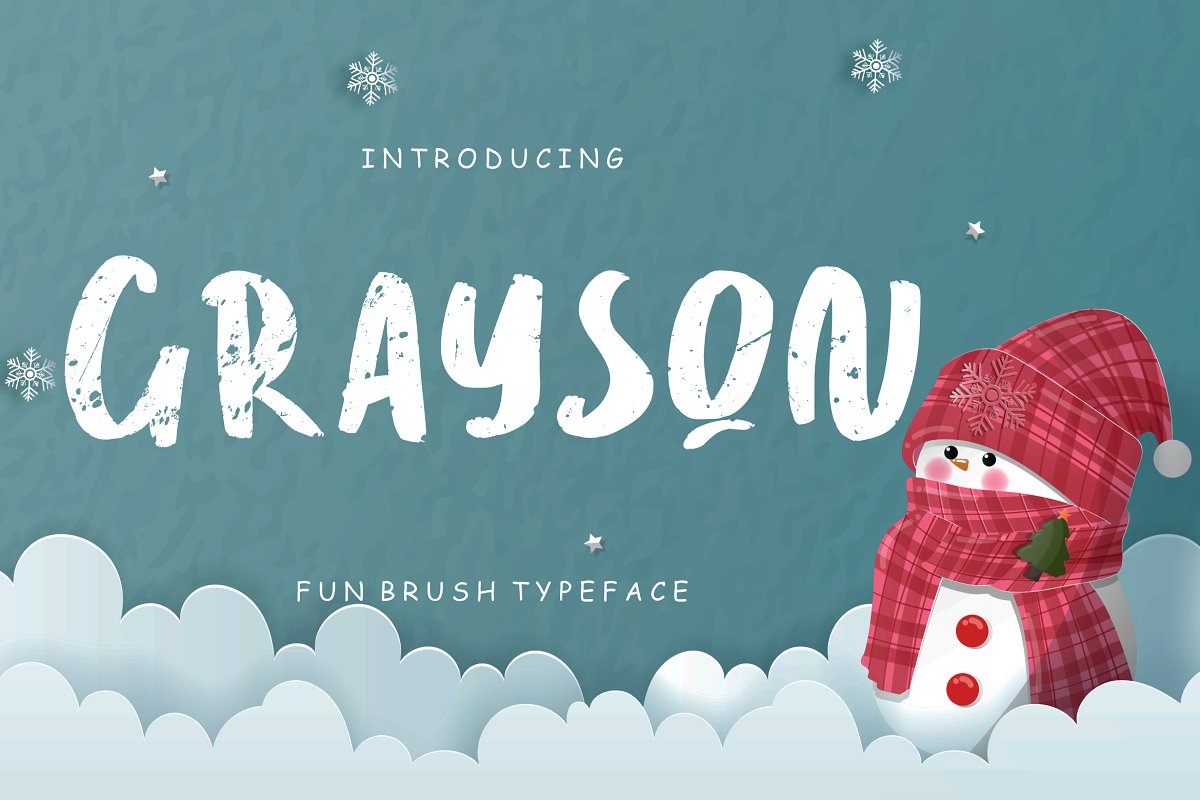
Grayson Fun Brush Typeface
Grayson is a fun brush commercial use font for children, kindergarten, and Christmas occasions.
Grayson is perfect for branding projects, logos, wedding designs, social media posts, advertisements, product packaging, product designs, labels, photography, watermarks, invitations, stationery and any projects that need handwriting taste.
Unexpected and playful brush typeface that will inspire you to create something memorable.